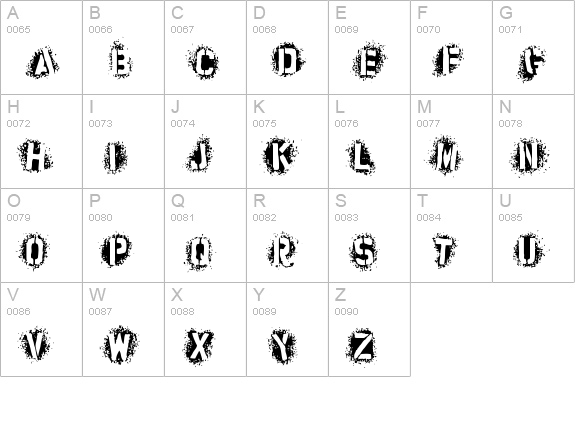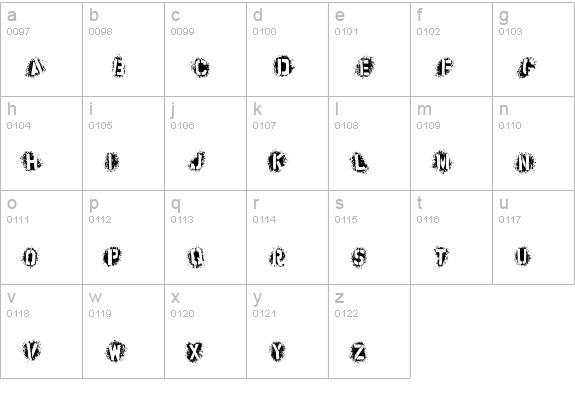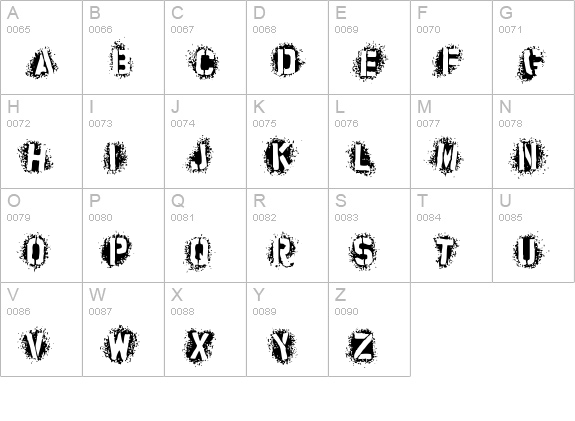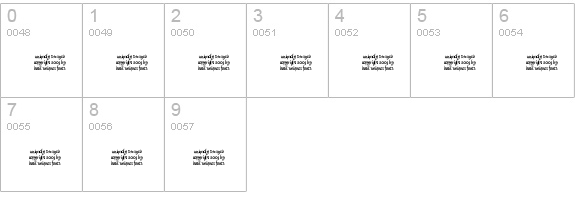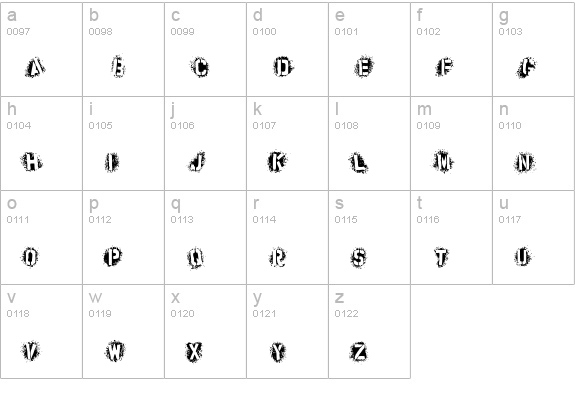
uniquely Sprayed Font Details
Uniquely Sprayed font is a stunning display typeface that exudes a distinct and artistic vibe. Its design, inspired by the technique of spray painting, brings a dynamic and edgy touch to any project. Each character is meticulously crafted with intricate spray textures, creating a one-of-a-kind appearance that stands out from the crowd. This font is perfect for various creative purposes such as logos, headlines, posters, and social media graphics. Its bold and expressive nature adds a captivating element to your designs, making them instantly eye-catching and memorable. Whether you're working on a street art-inspired project, a music album cover, or a fashion campaign, Uniquely Sprayed font will effortlessly elevate your work to new levels of creativity. What makes Uniquely Sprayed font even more appealing is that it is available for free download at FontsMarket.com. This means that you can easily access and utilize this incredible font without any cost. Its availability for free makes it a valuable asset for designers, artists, and creatives looking to add a touch of urban flair to their projects. So, if you're seeking a font that breaks the boundaries of conventionality and adds a unique twist to your designs, look no further than Uniquely Sprayed font. Download it for free at FontsMarket.com and unleash your creativity with this extraordinary typeface.